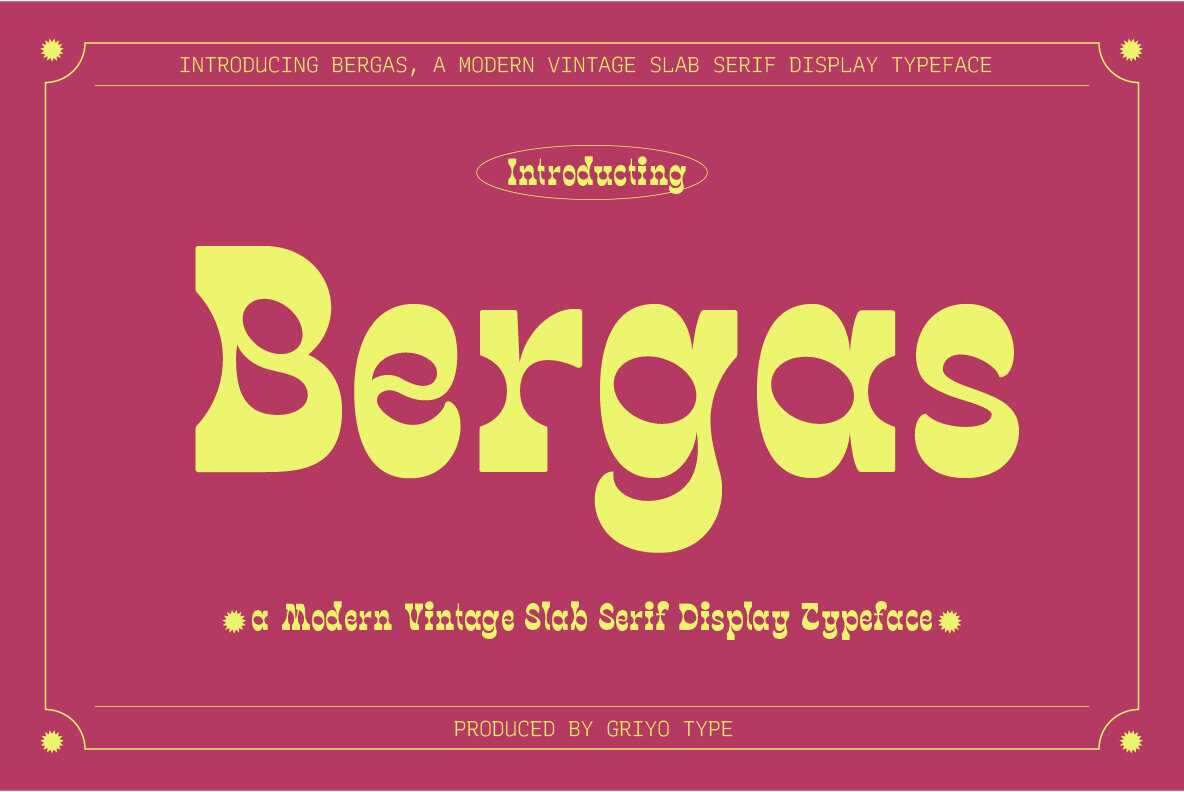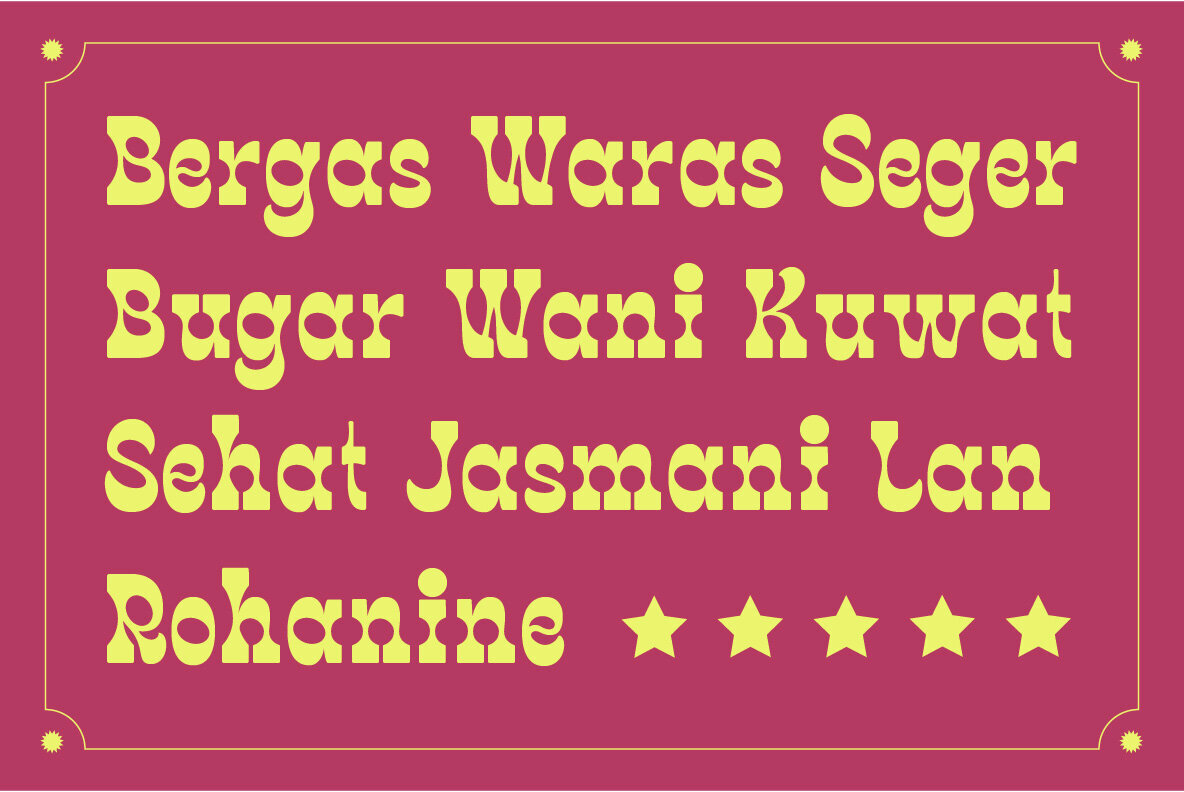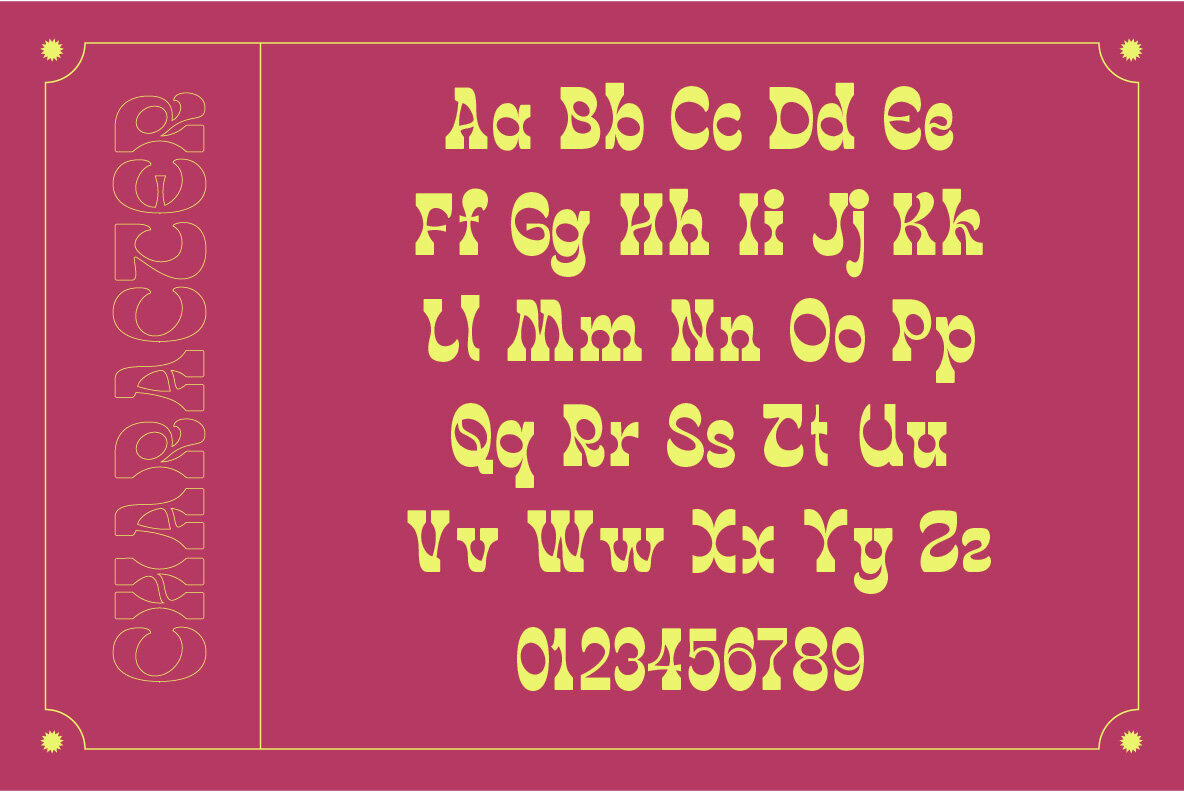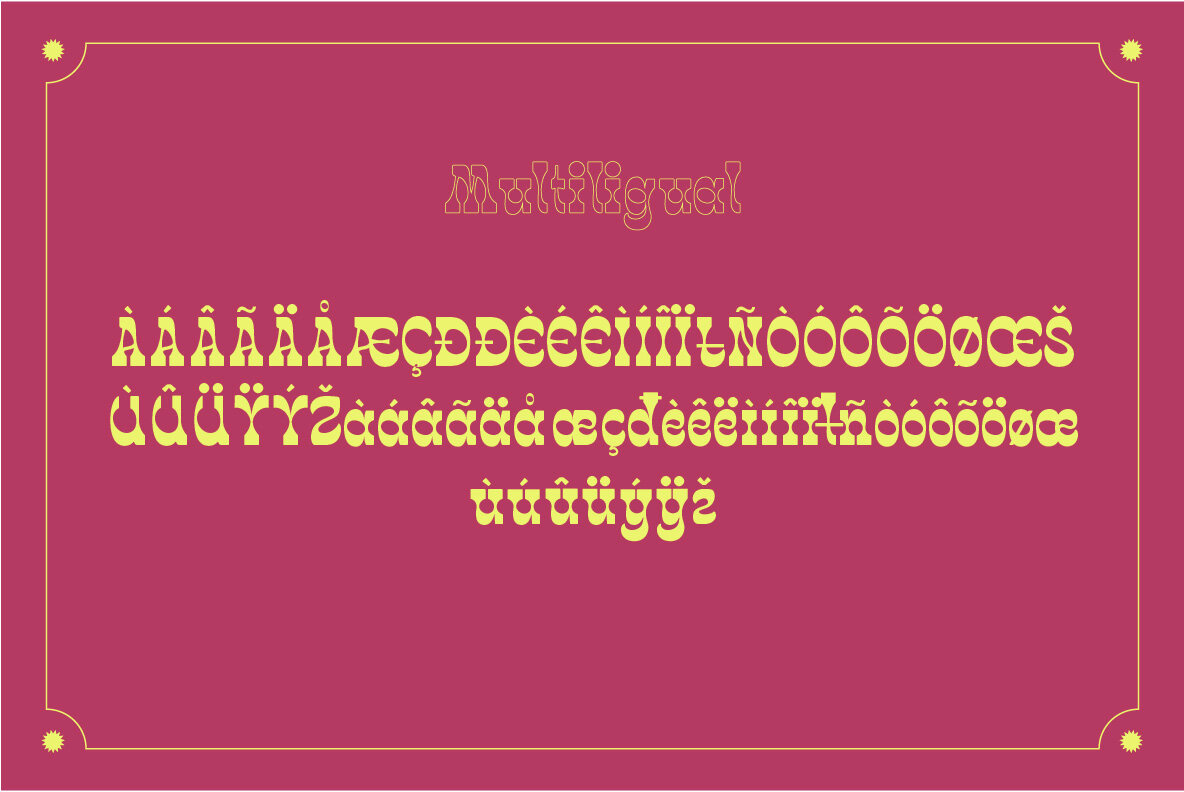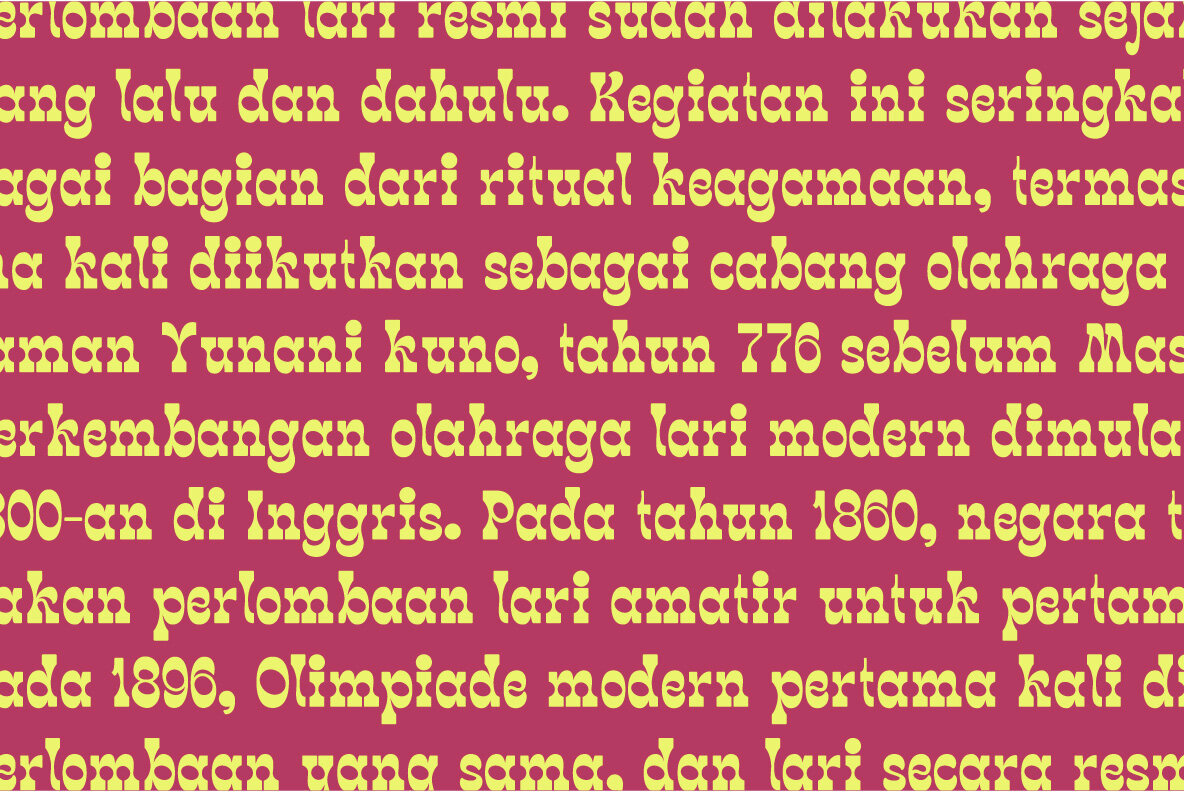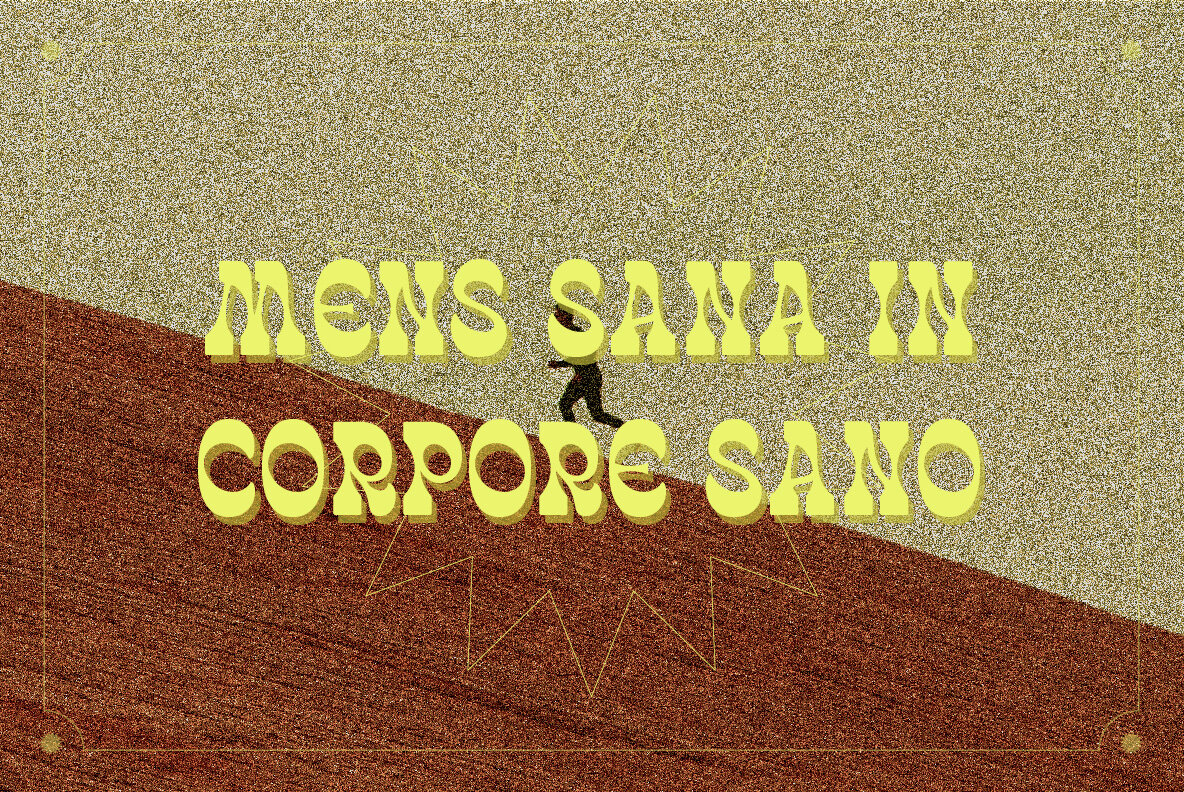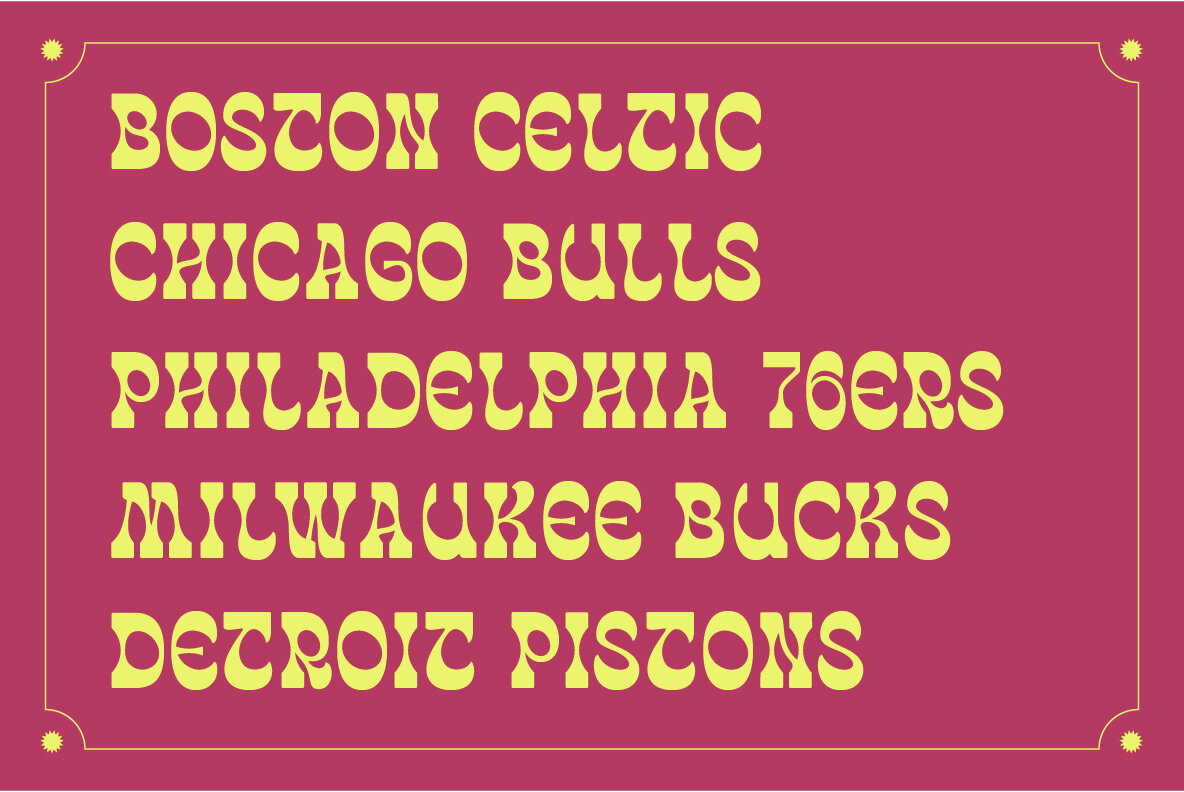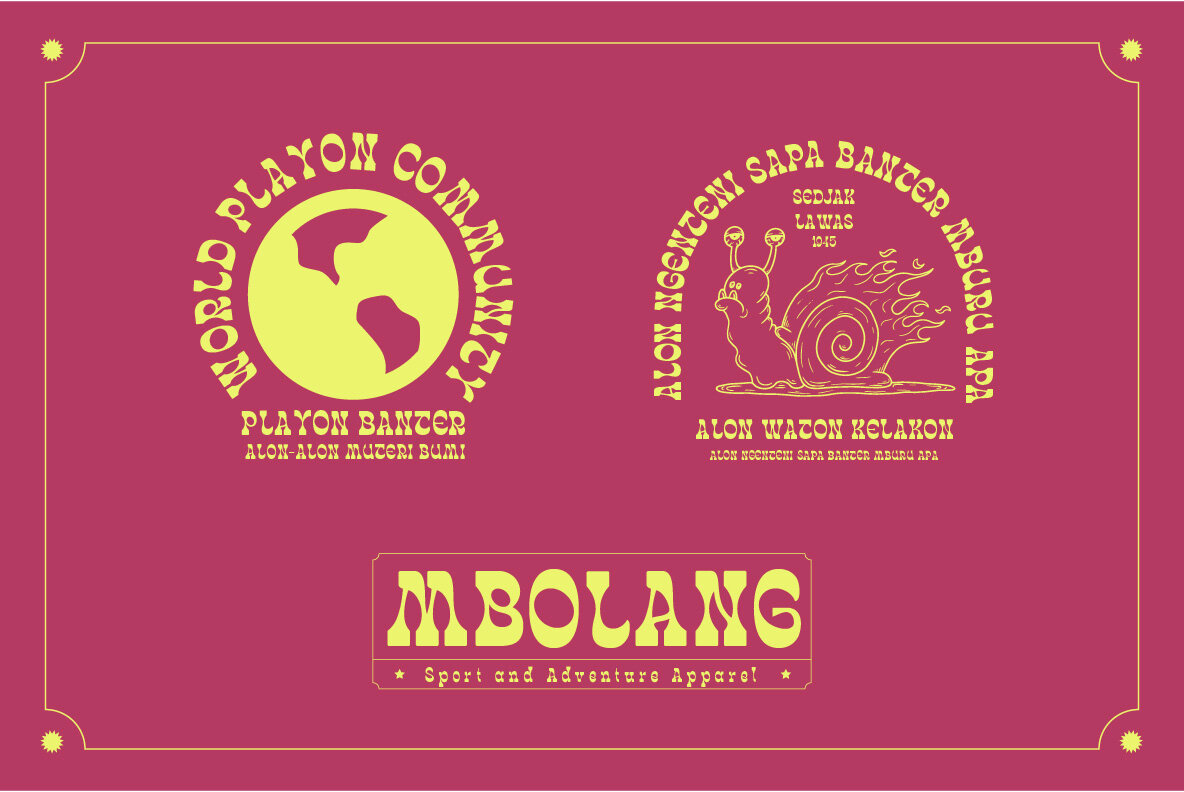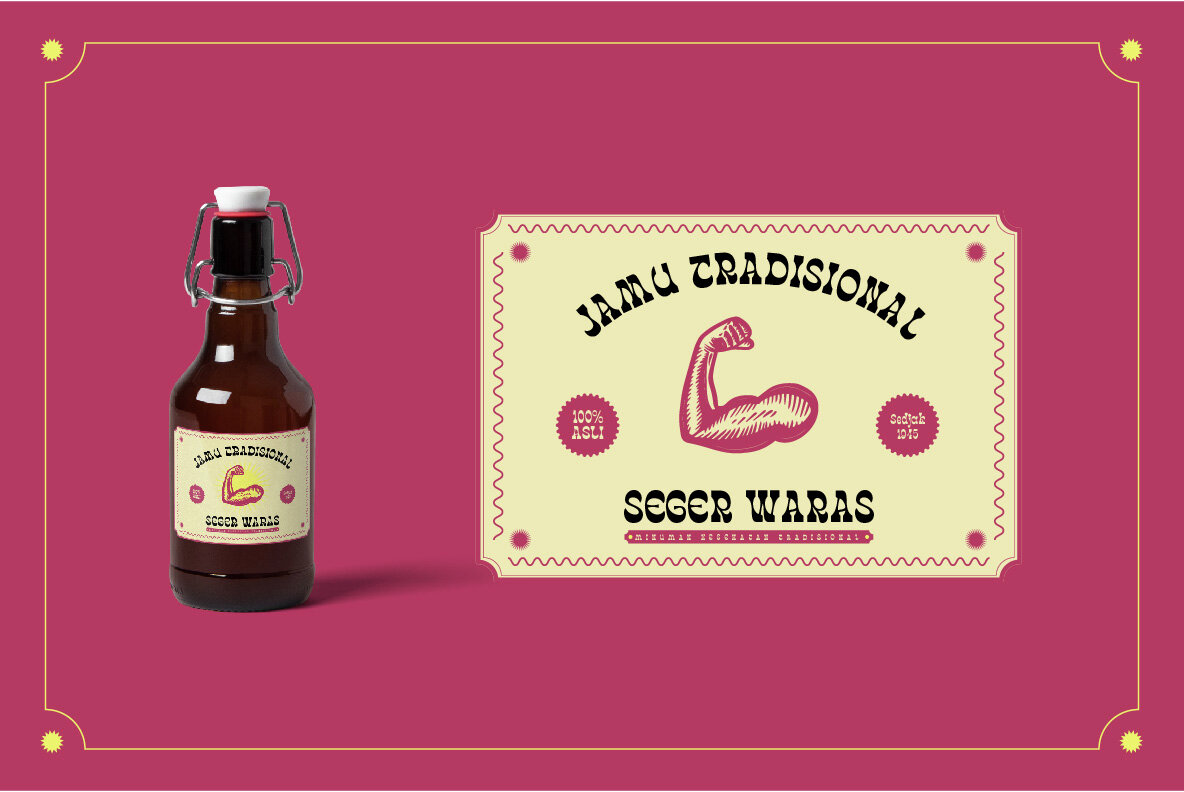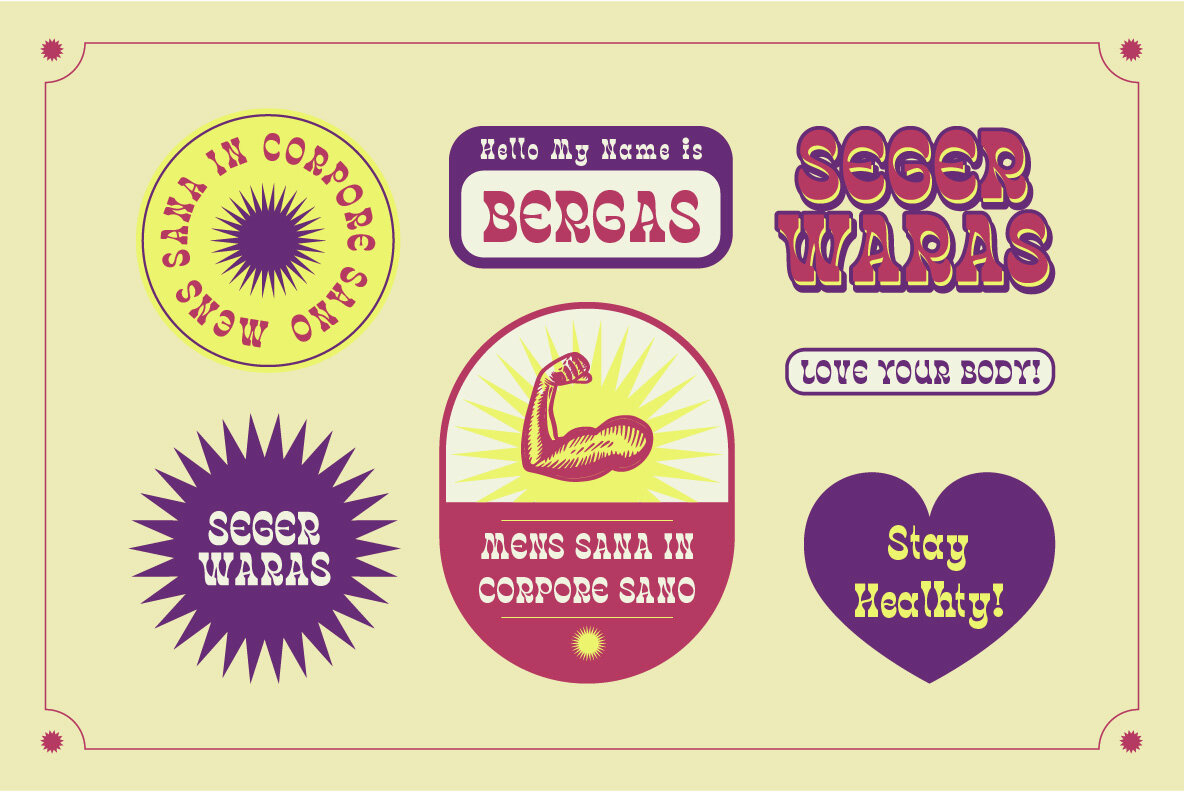
Bergas Font
Bergas Regular
Bergas brings together a sense of nostalgia and playfulness with its distinctive slab serif style, featuring wavy rhythms and inviting curves. This font adds character and warmth to your projects, making it well-suited for designs that benefit from a retro aesthetic paired with a cheerful energy. Designed for bold visual impact, Bergas stands out in a wide range of applications—from children’s games and cartoons to logos and posters. Its bouncy forms encourage a friendly and approachable feel, making it an excellent choice for designs looking to capture attention and convey a sense of joy.Bergas Modern Vintage Slab Serif